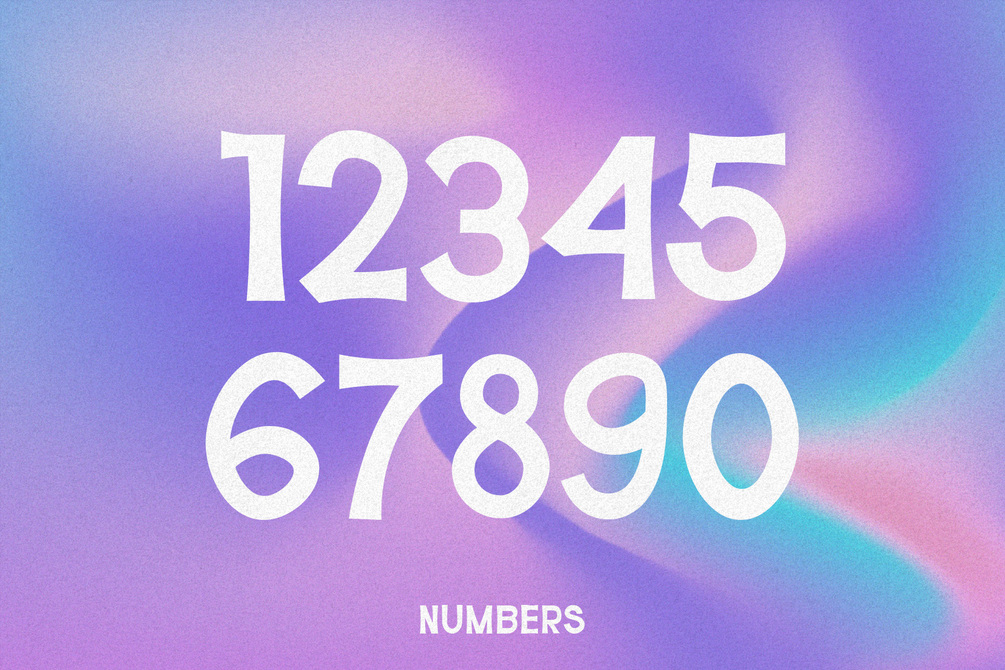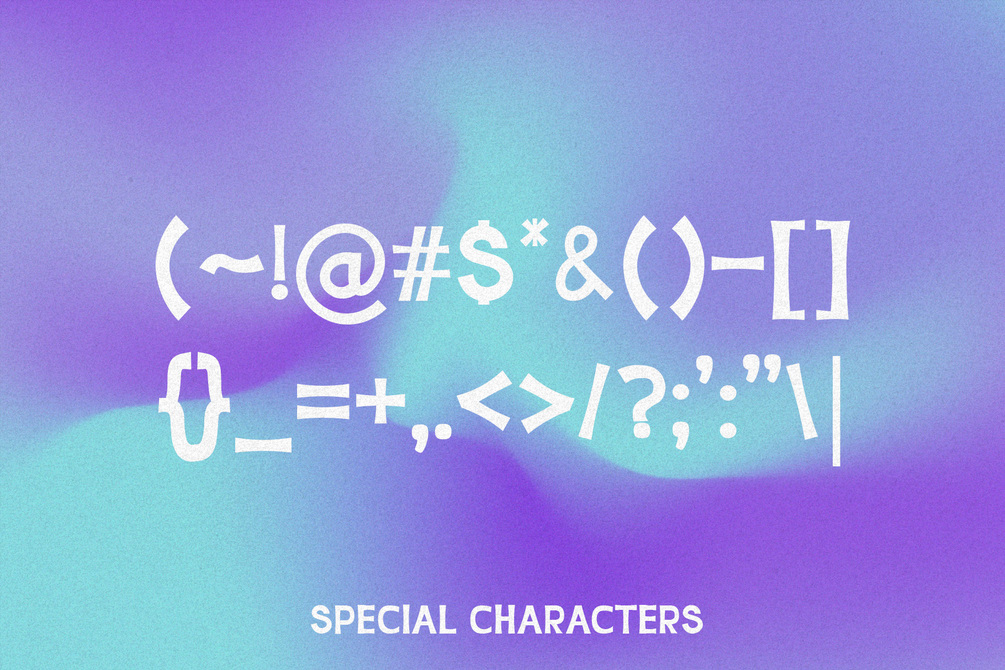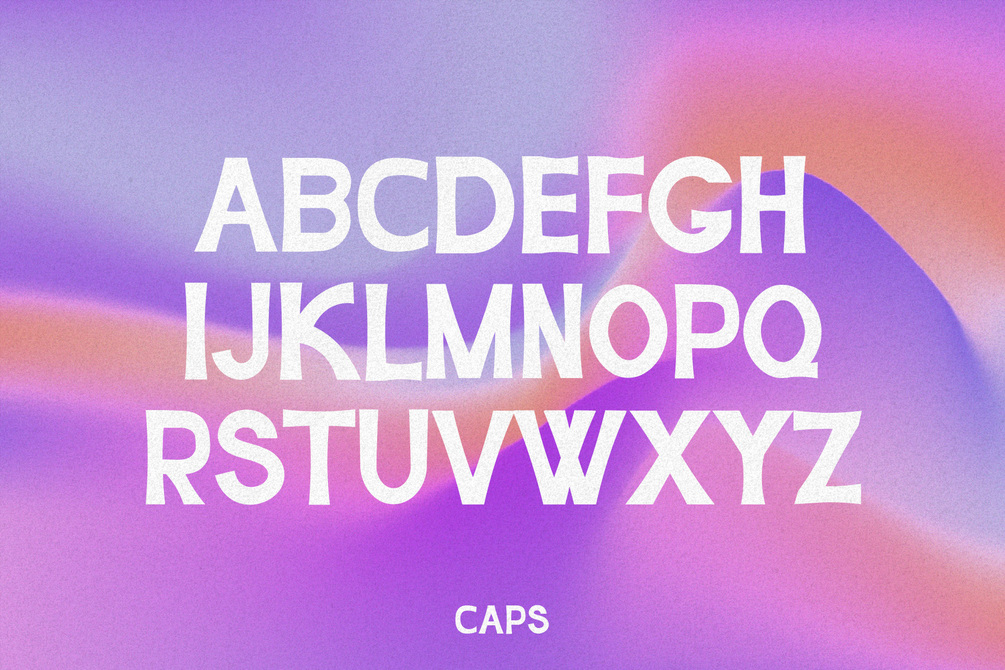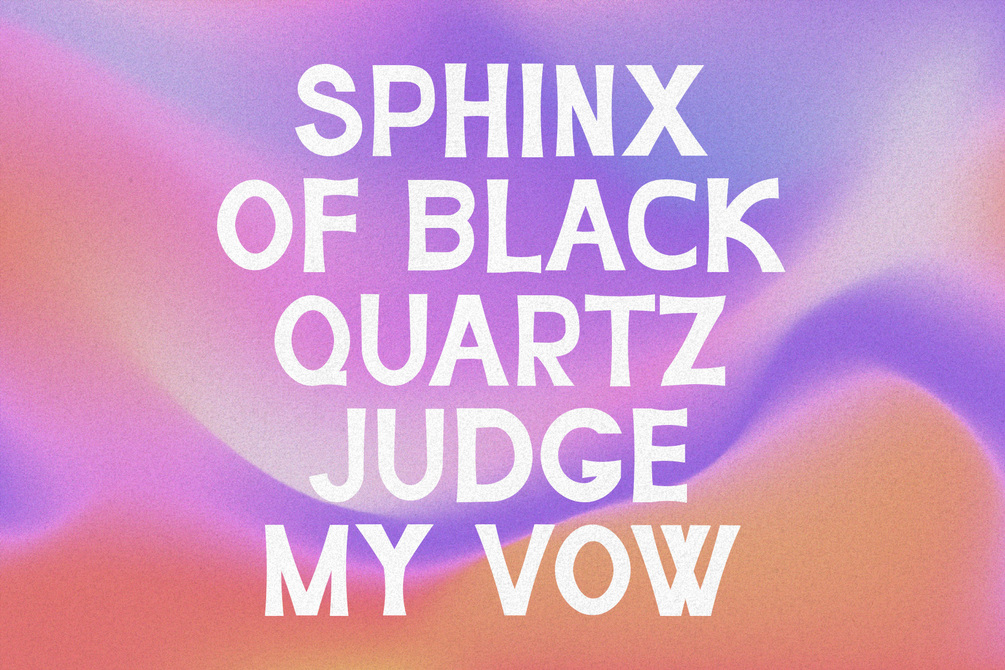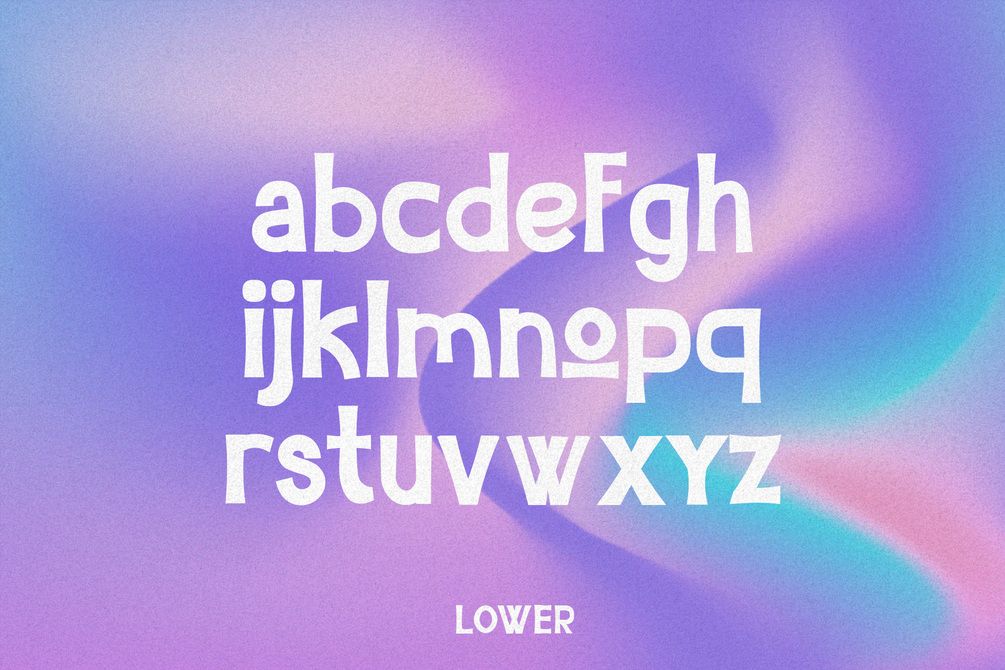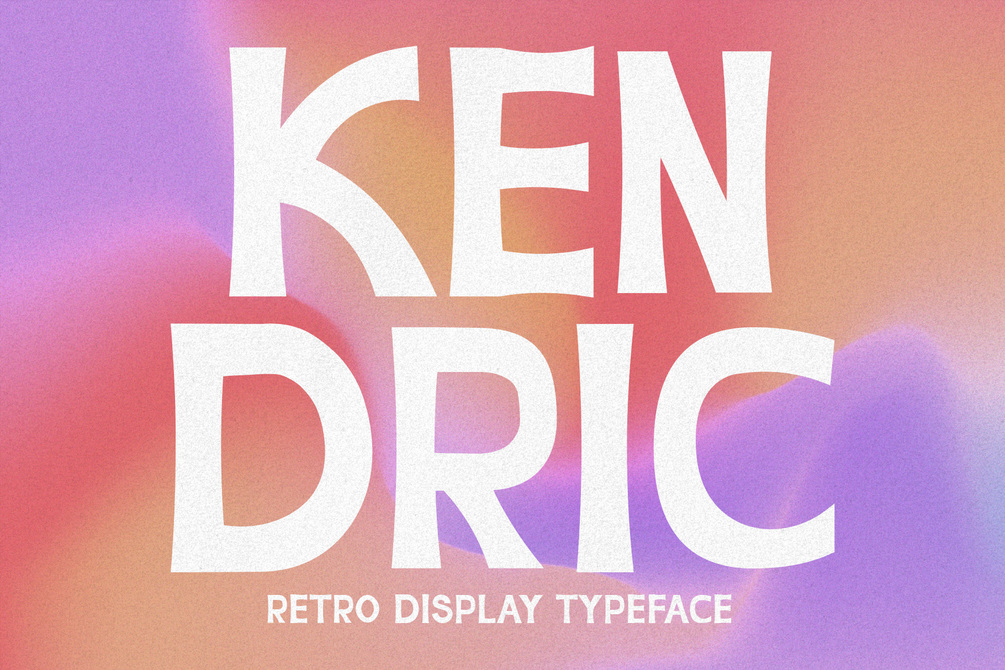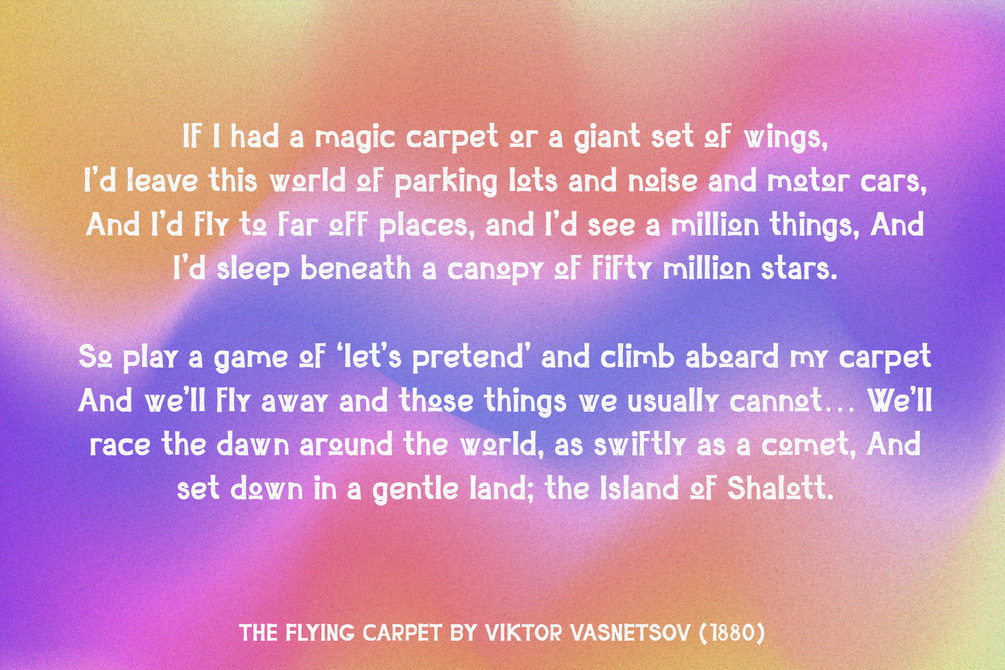
Kendric - Display Typeface
Kendric is a beautiful retro display typeface. Thanks to its legibility it's perfect for large format use. The font is very lighthearted and not too serious. Perfect for headlines, books, posters, brochures, branding, billboards, websites, and whatever else you can imagine.